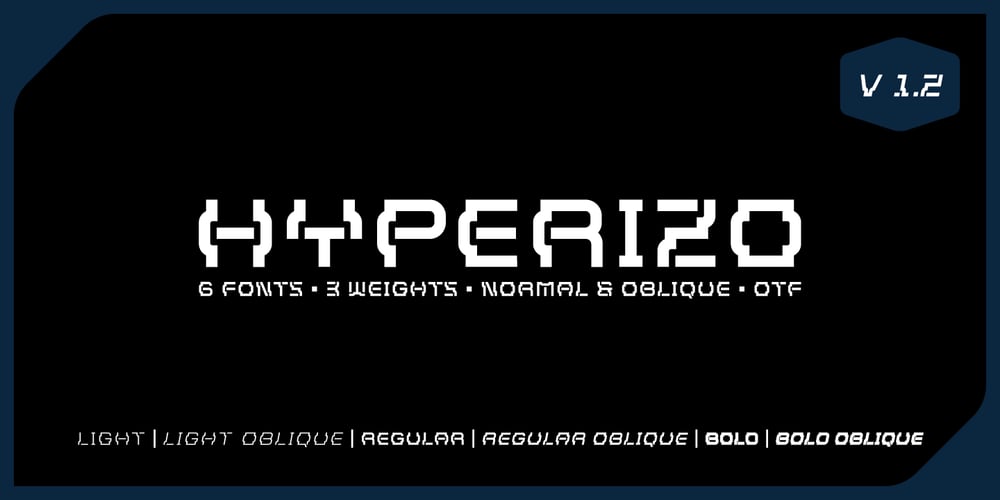
Hyperizo Font Family was designed by Tommy Suhartomo and published by AbtoCreative. Hyperizo contains 6 styles and family package options. Hyperizo is a futuristic style font in three weights.It’s the perfect font for logo, game, packaging, poster, web use, etc. The family contains a set of 231 characters, supporting multilingual and OpenType features.